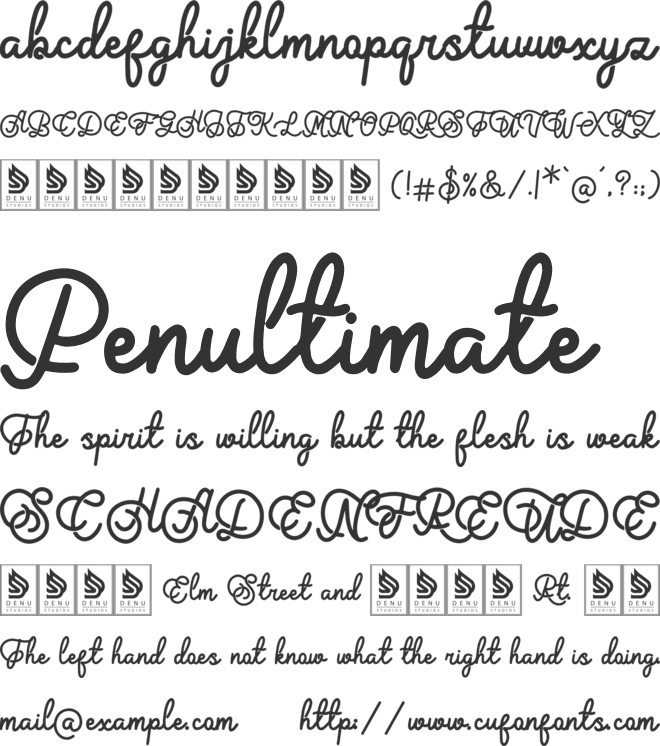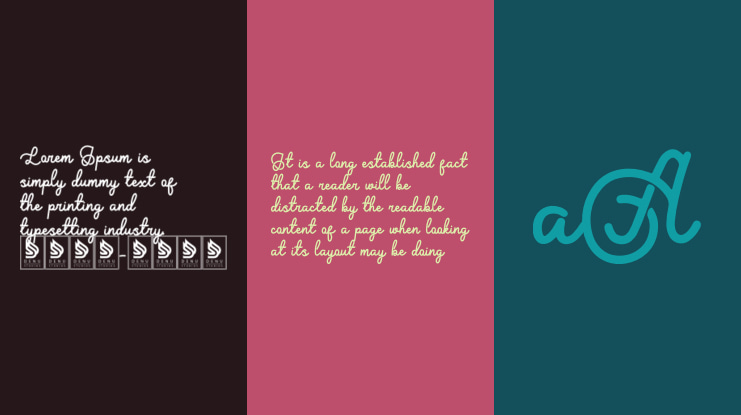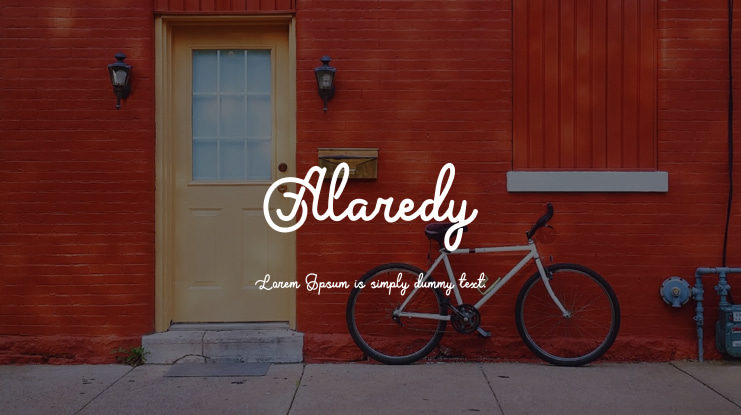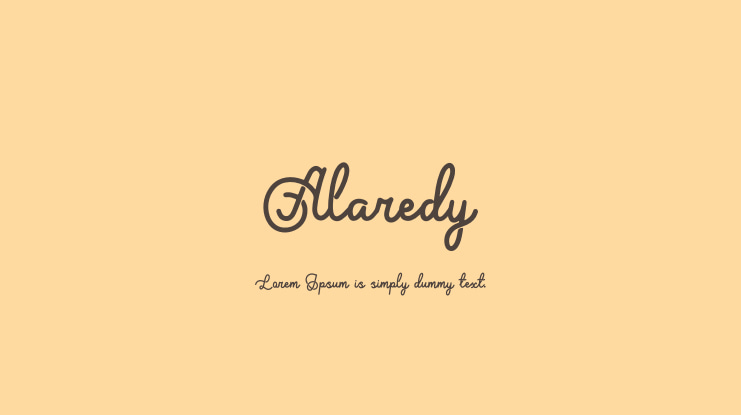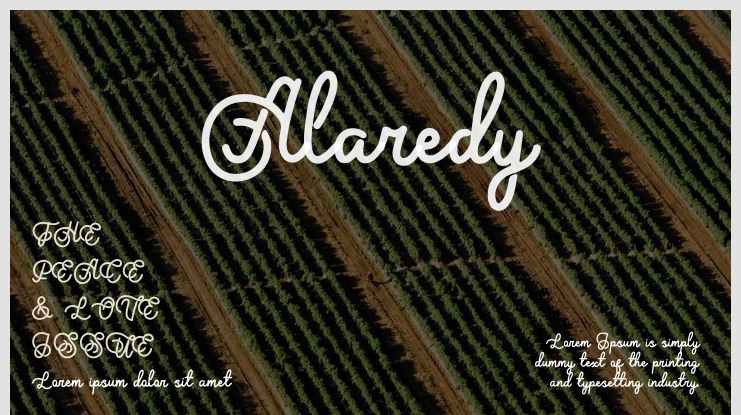
**Alaredy | Monoline Script**
Alaredy | Monoline Script is ideal for various projects including logos, branding projects, homeware designs, product packaging, mugs, quotes, posters, shopping bags, t-shirts, book covers, name cards, invitation cards, greeting cards, labels, photography, watermarks, special events, and more. This font is perfect for any project that requires a taste of Monoline Script.